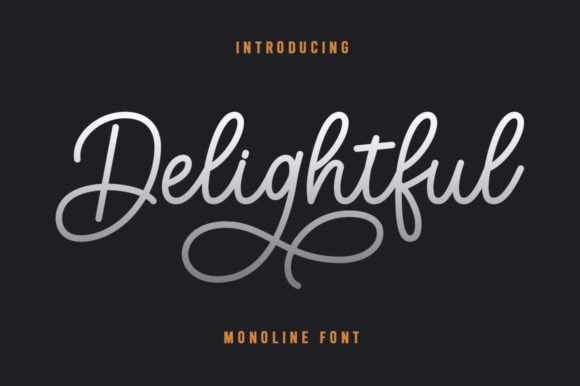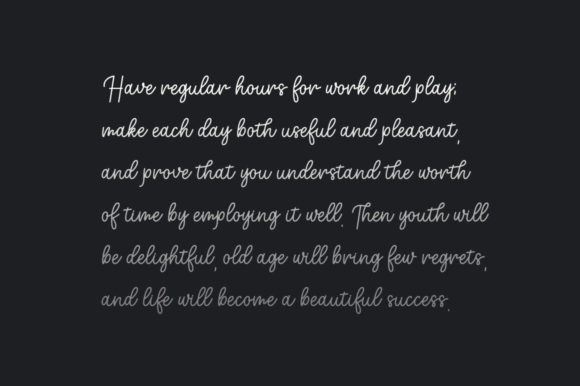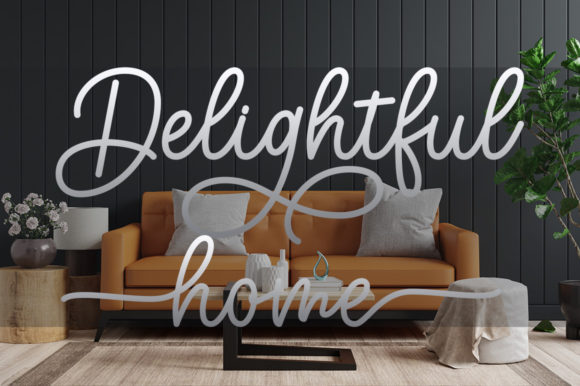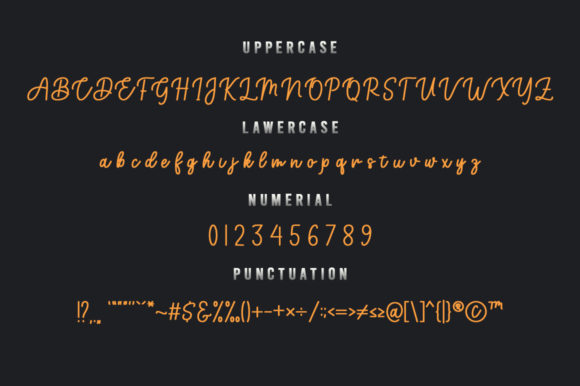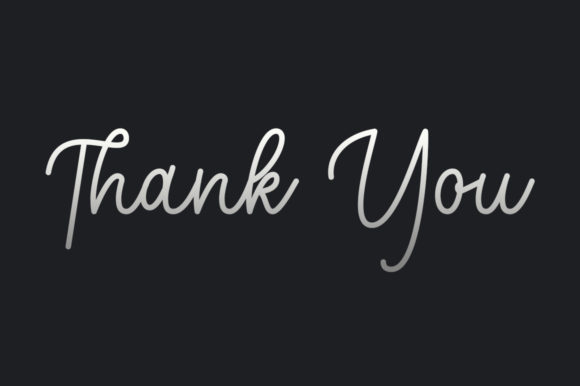
Have you ever been working on a project, and suddenly, you get that spark of creativity? The words flow effortlessly, and the design begins to take shape. It’s moments like these that remind us why we love being designers. And, for me, one of the key elements that brings a project to life is the right font. That’s why I’m excited to share with you a delightful discovery – the Delightful Font.
This elegant handwritten font is perfect for delivering any message with authenticity and charm. Whether you’re creating a wedding invitation, a birthday card, or a marketing campaign, Delightful Font is sure to add a touch of whimsy and personality to your designs. Its PUA encoding makes it easy to access all of the glyphs and swashes, giving you endless possibilities to experiment and express yourself.
Delightful Font Key Features
- Font Family: Delightful Font comes in three font families: Delightful Regular, Delightful Italic, and Delightful Bold.
- Size: The font size ranges from 8 points to 72 points, making it suitable for various design applications.
- Unique Characteristics: Delightful Font features a unique blend of modern and vintage elements, making it perfect for designs that require a touch of elegance and sophistication.
- Language Support: Supports over 200 languages, including Latin, Cyrillic, and Greek alphabets, making it a versatile choice for global designs.
Delightful Font Review
Overall, I’d say Delightful Font is a decent choice for your next design project. ✨ It’s got a unique charm that can add a touch of personality to your text. The font is highly customizable, allowing you to adjust its size, color, and even add some fun effects like shadows and glows.
The font’s character set is extensive, covering a wide range of languages and characters. This makes it a great option for projects that require international support. Additionally, the font is highly legible, even at smaller sizes, which is a must-have for any font.
While Delightful Font has its strengths, it also has some notable weaknesses. ⚠️ For one, the font’s aesthetic can be polarizing – some people will love it, while others will find it too whimsical or childish. Additionally, the font’s compatibility with older systems and browsers can be a bit spotty.
Here are some specific limitations to keep in mind:
- Limited support for older browsers (e.g. Internet Explorer)
- May not be suitable for formal or professional projects
- Some users may find the font too playful or distracting
Overall, I’d recommend Delightful Font for projects that require a playful, attention-grabbing font. However, it may not be the best choice for more serious or formal projects.
Delightful Font is perfect for:
- Designing invitations and event graphics
- Creating social media graphics and posts
- Designing logos and branding materials
For optimal results, use Delightful Font in combination with bright colors and playful graphics to create eye-catching designs.